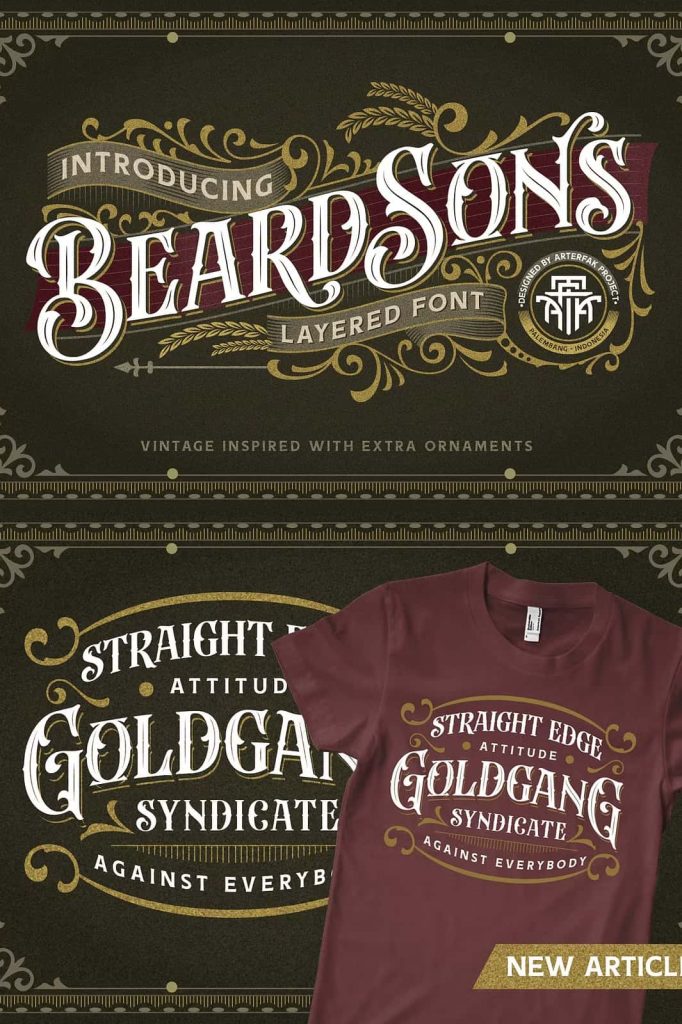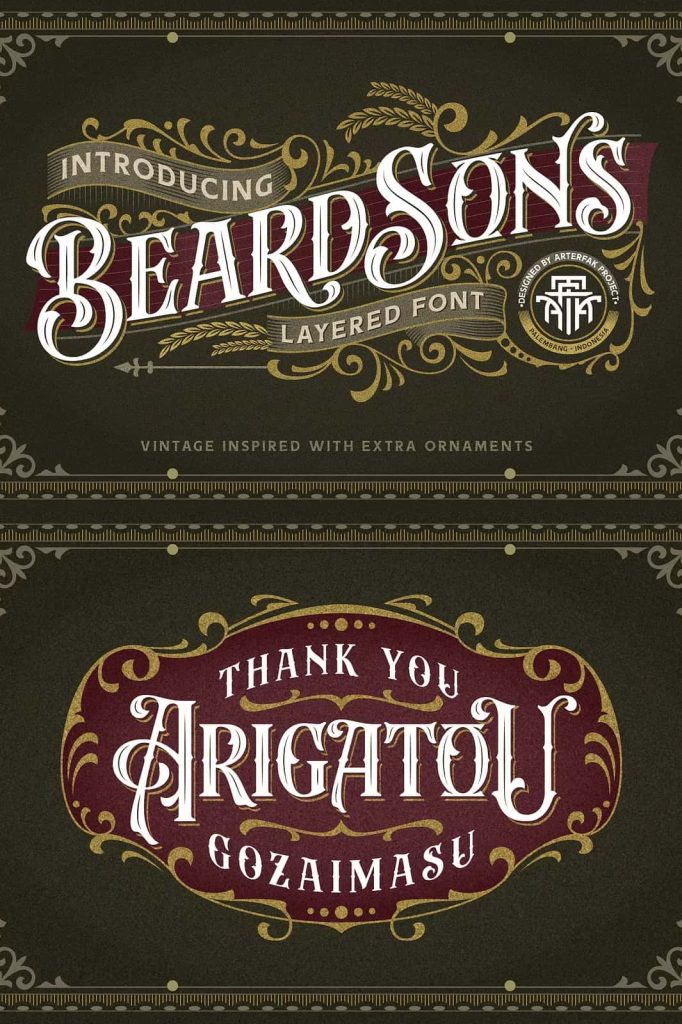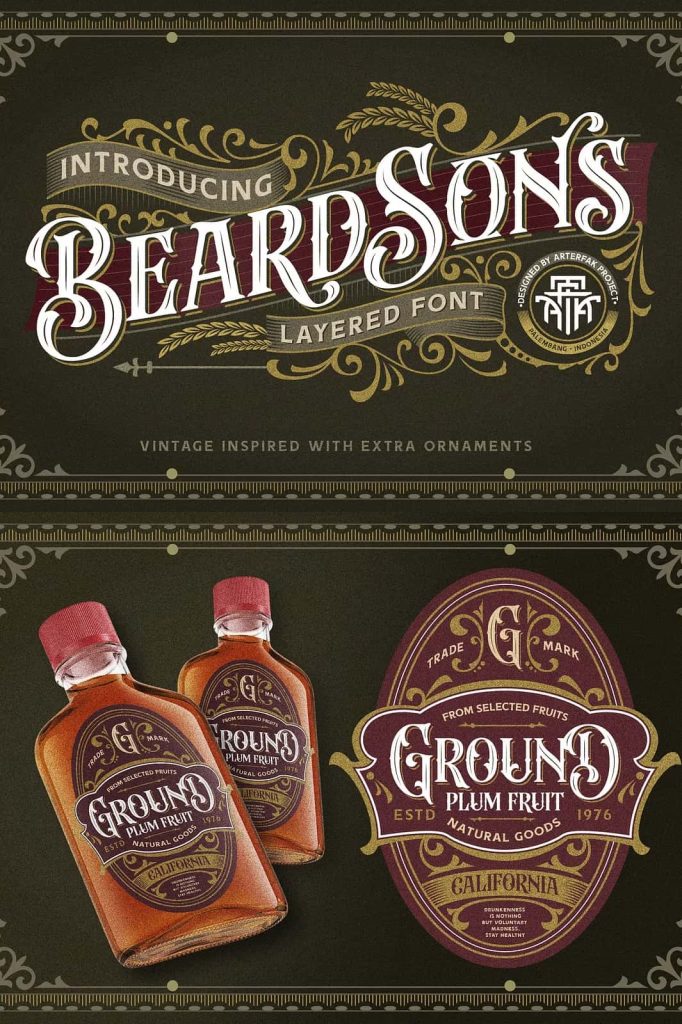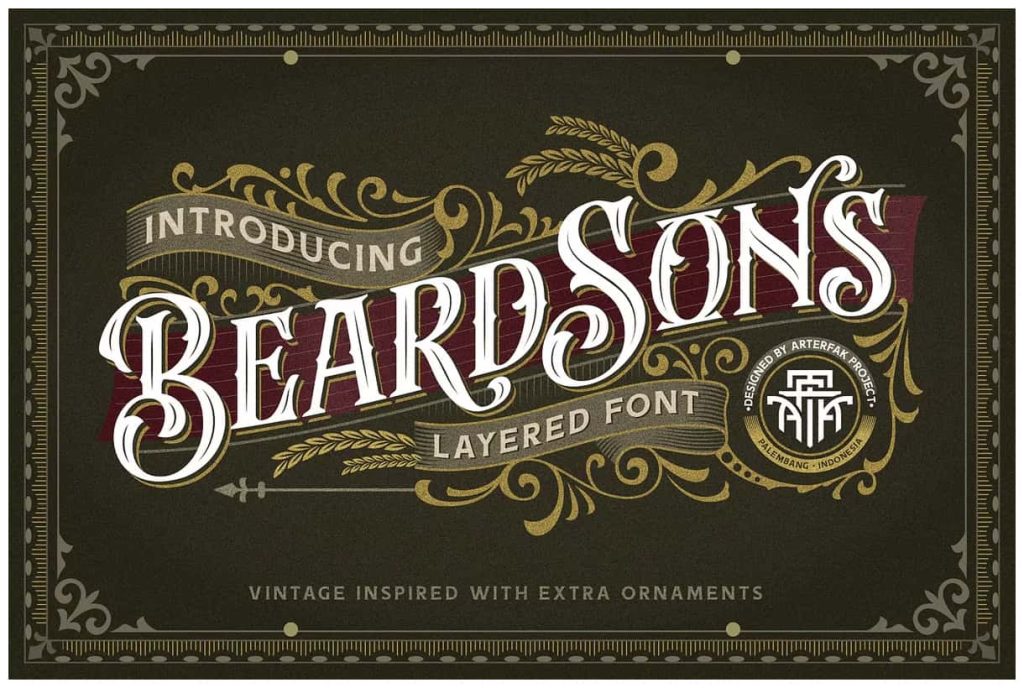
Introducing our new exploration Beardsons, another vintage-inspired font with the additional effect: Normal – Inline – Shadow, packed as the layered font.